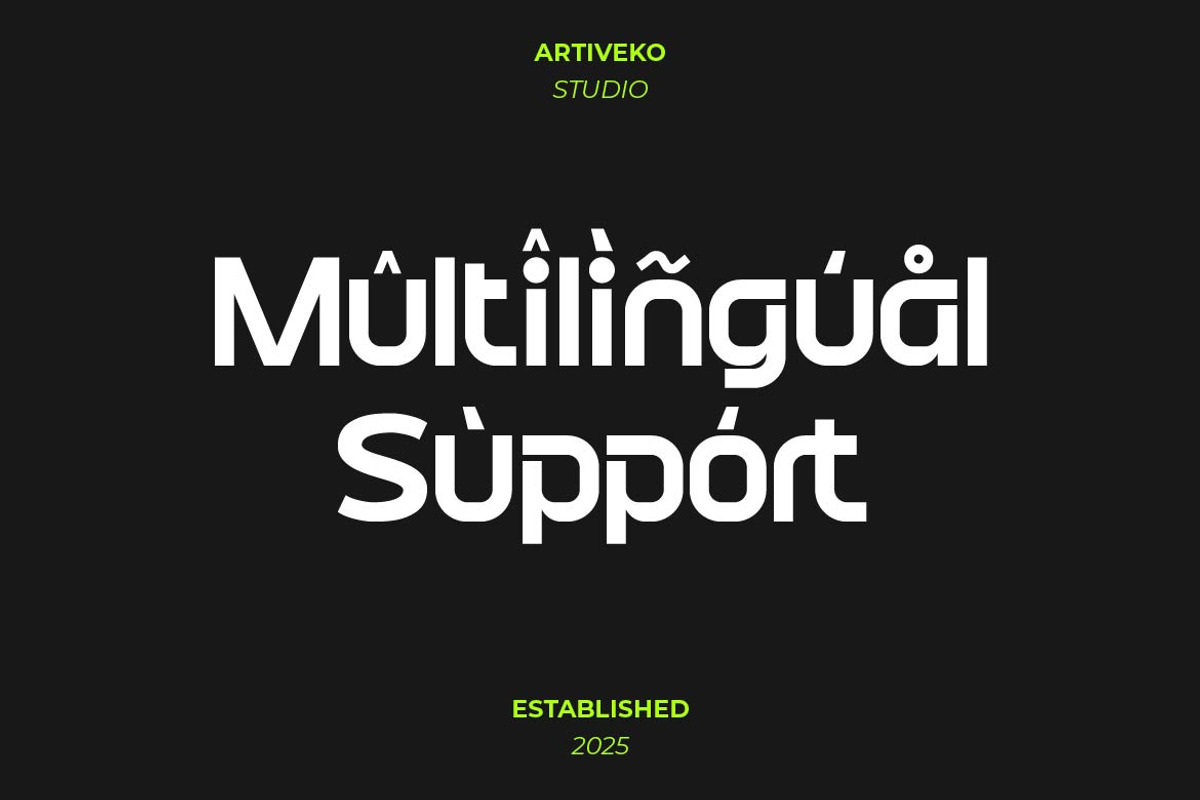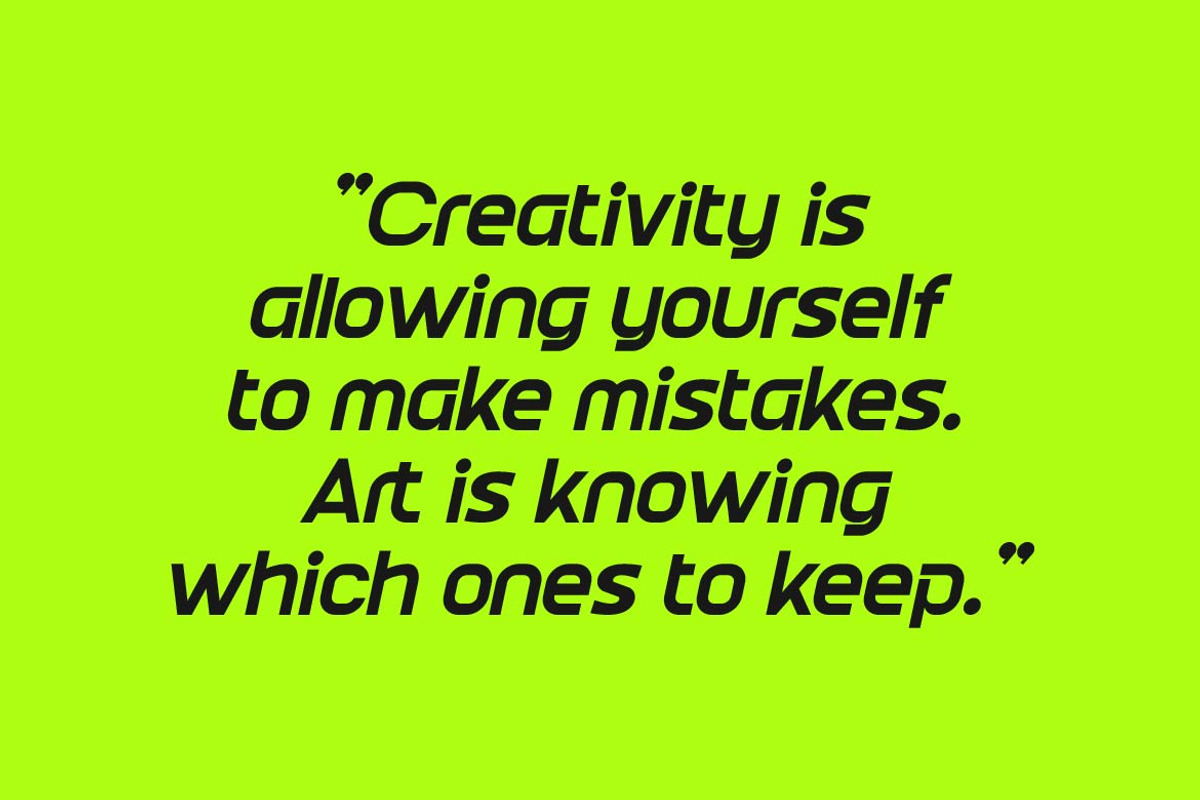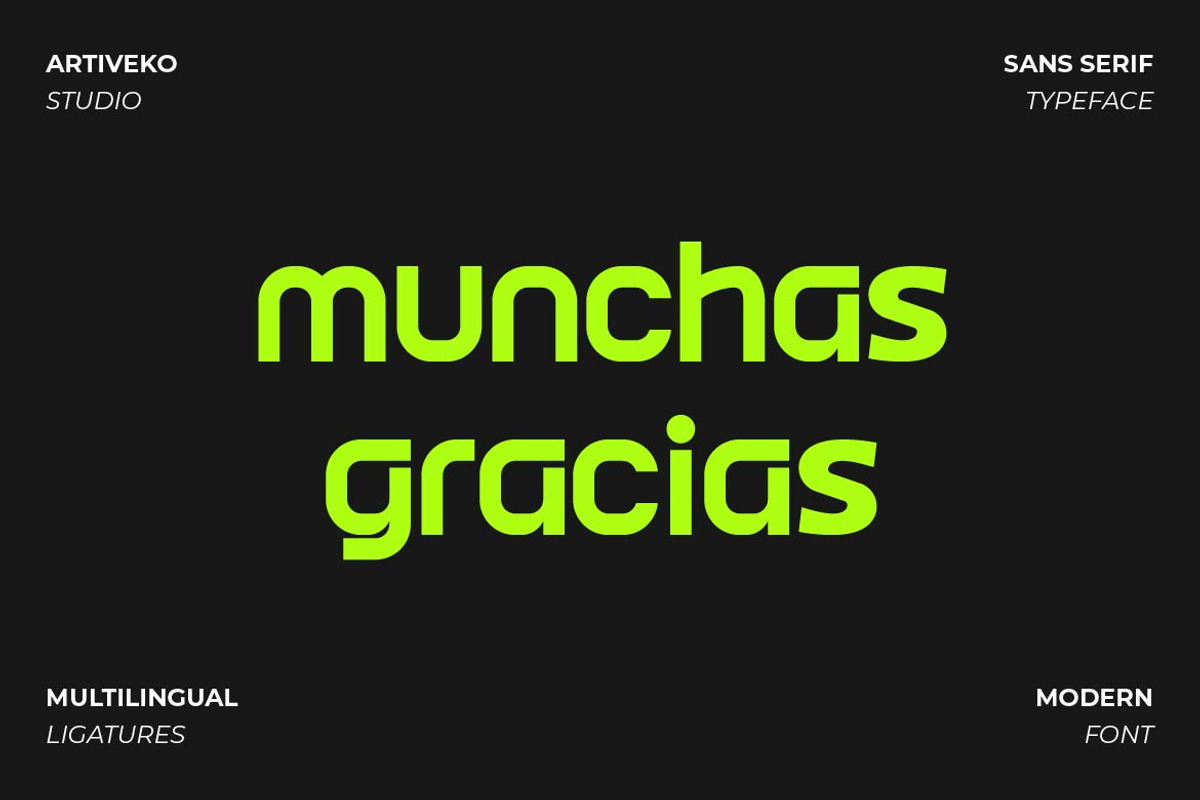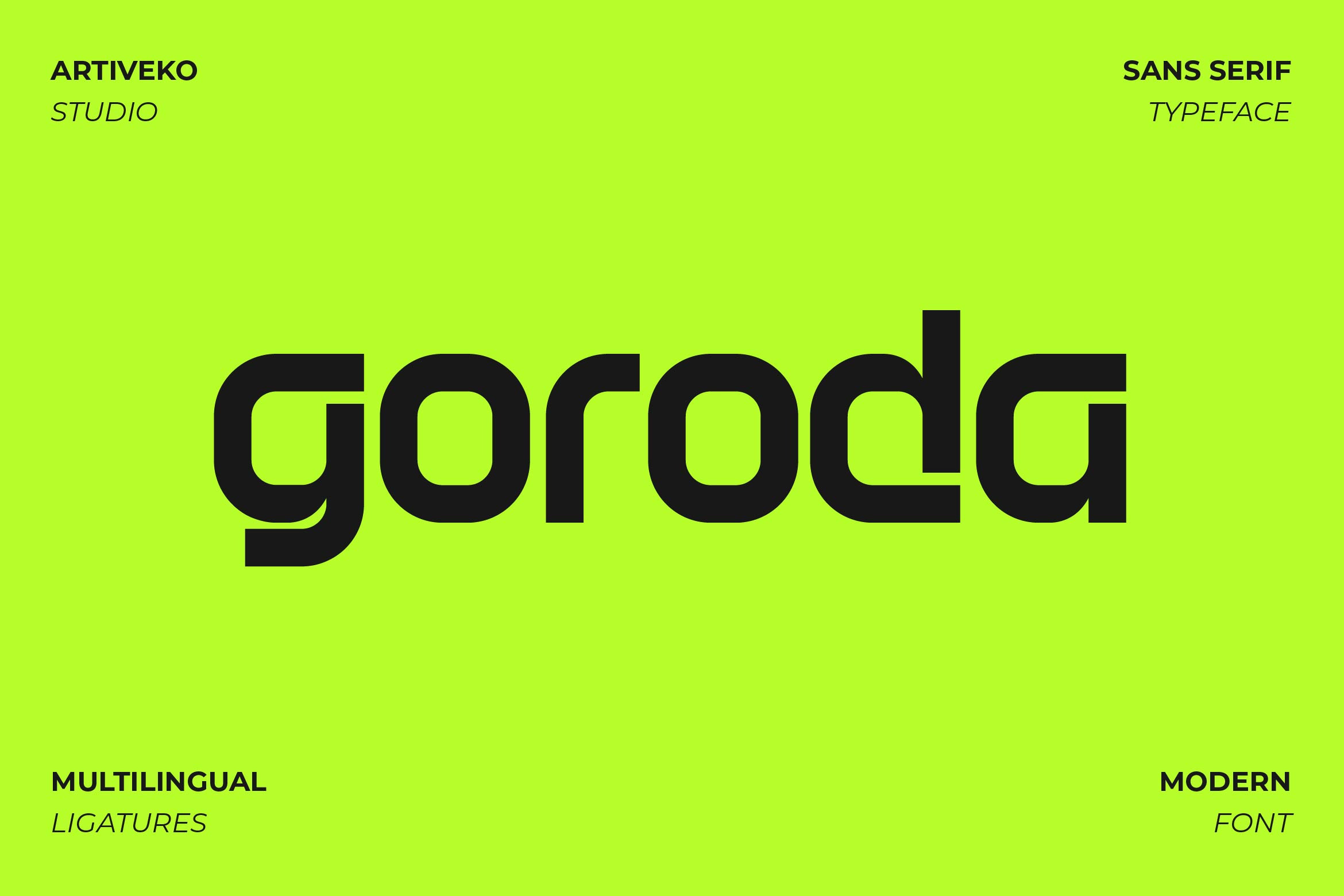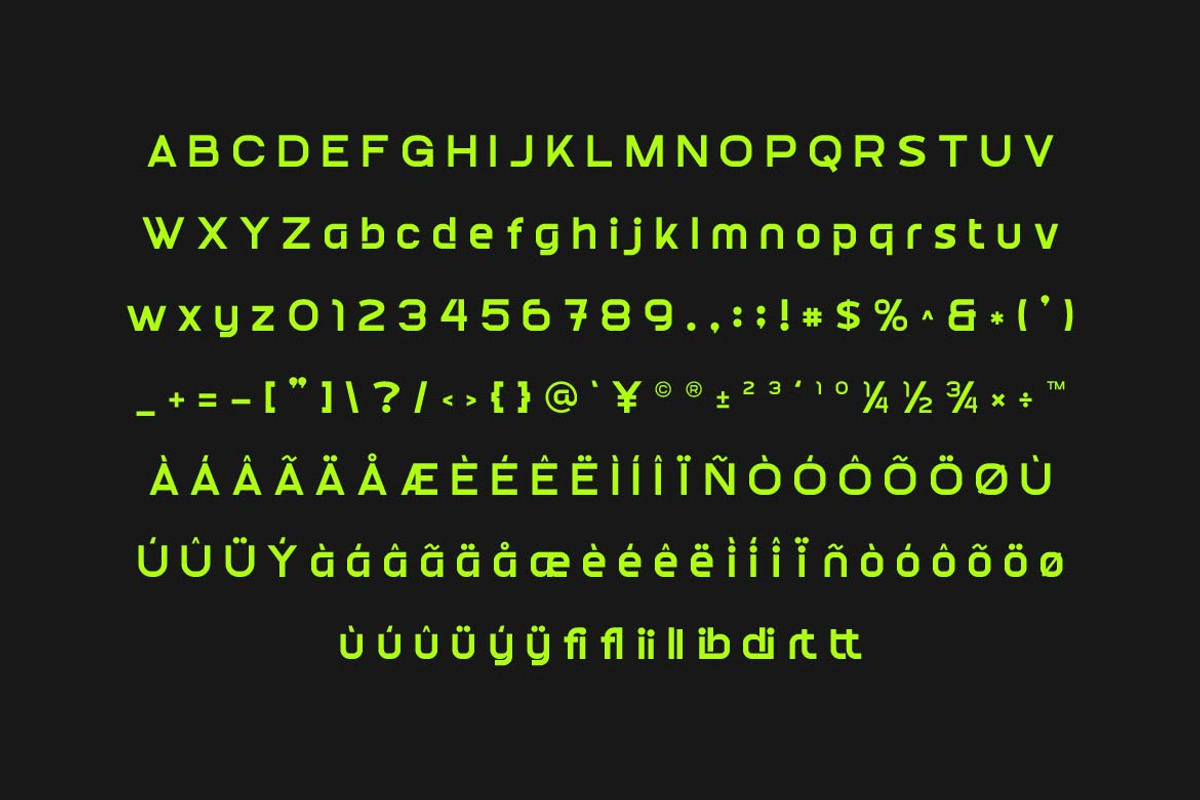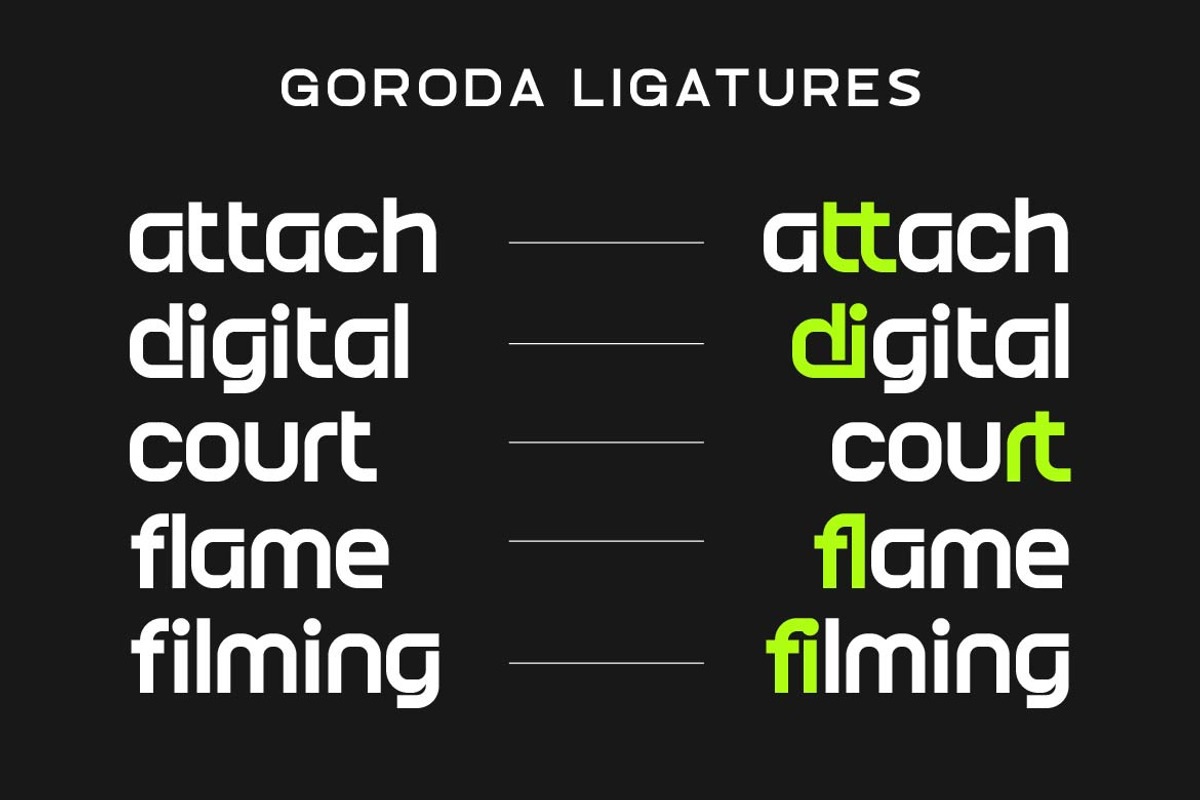
Goroda - Modern Elegant Logo Font
Goroda is a sleek sans serif font that combines modern minimalism with timeless elegance. Featuring smooth curves, geometric balance, and refined proportions, Goroda is designed to deliver clarity and sophistication across a wide range of creative projects. From luxury branding and professional logos to editorial layouts, website headers, and packaging, Goroda ensures a polished and stylish aesthetic.